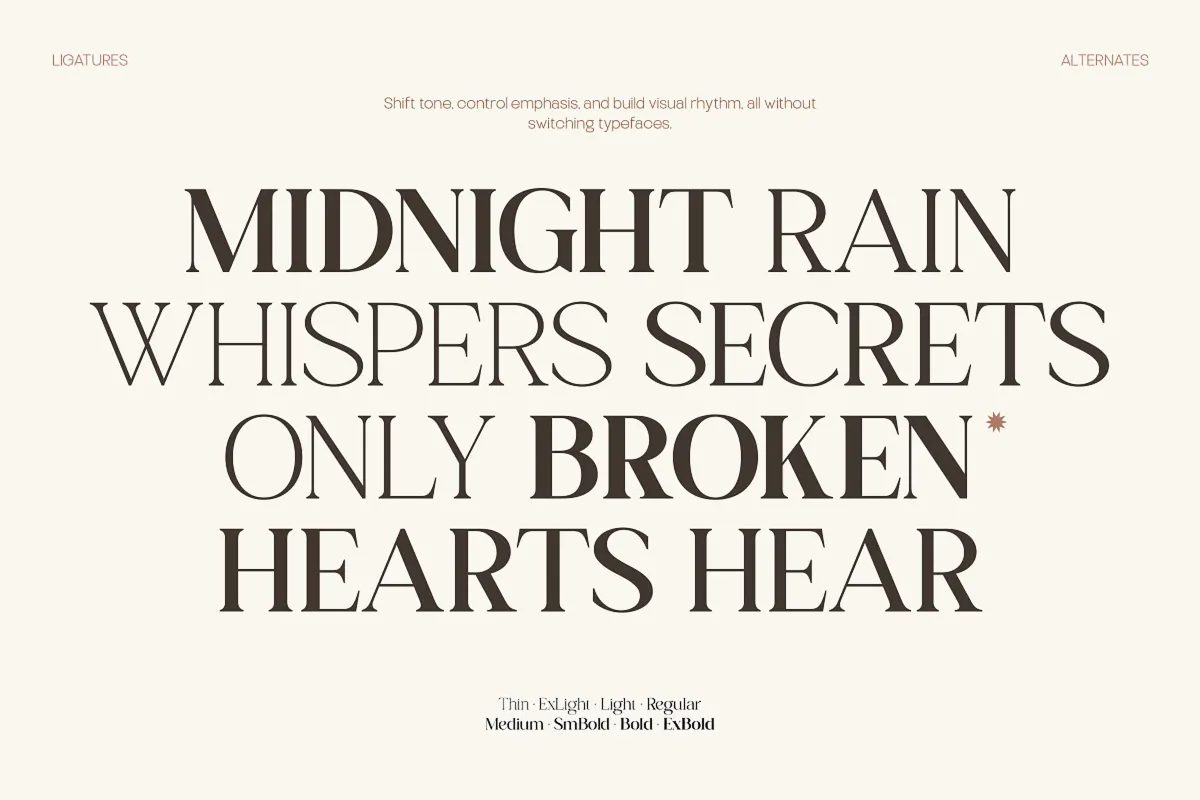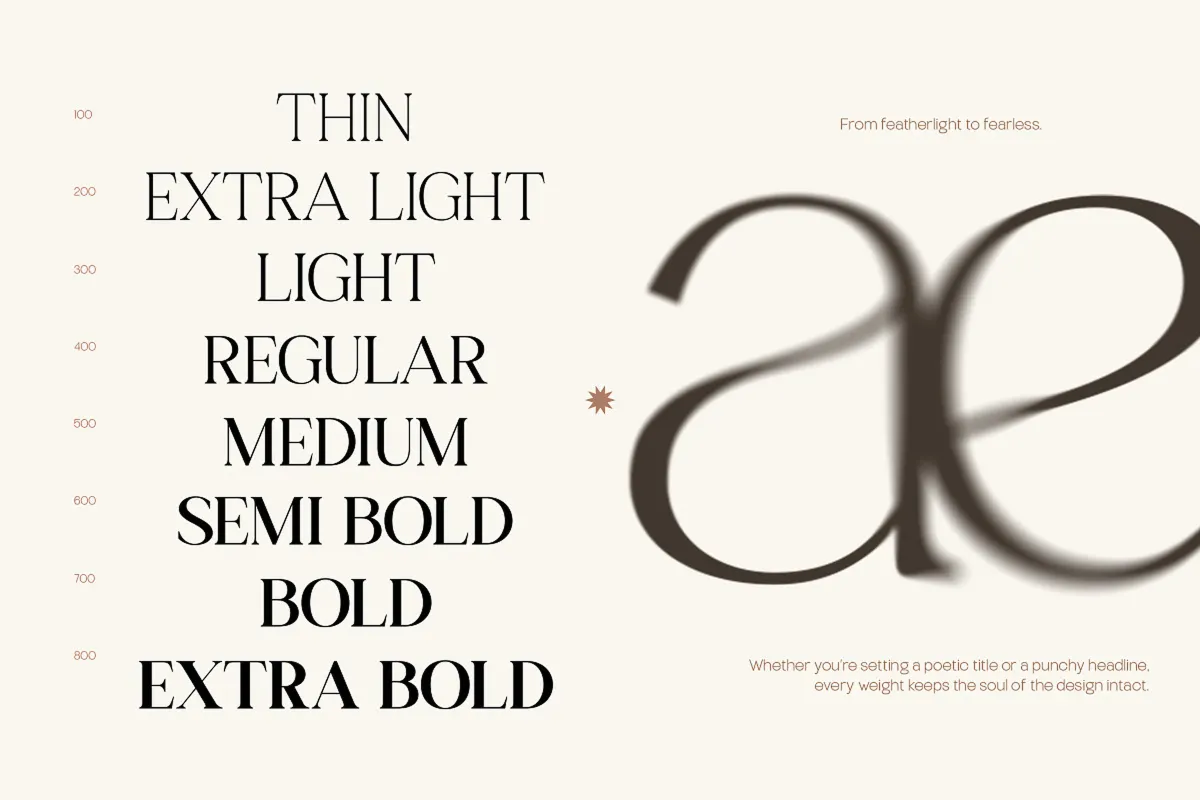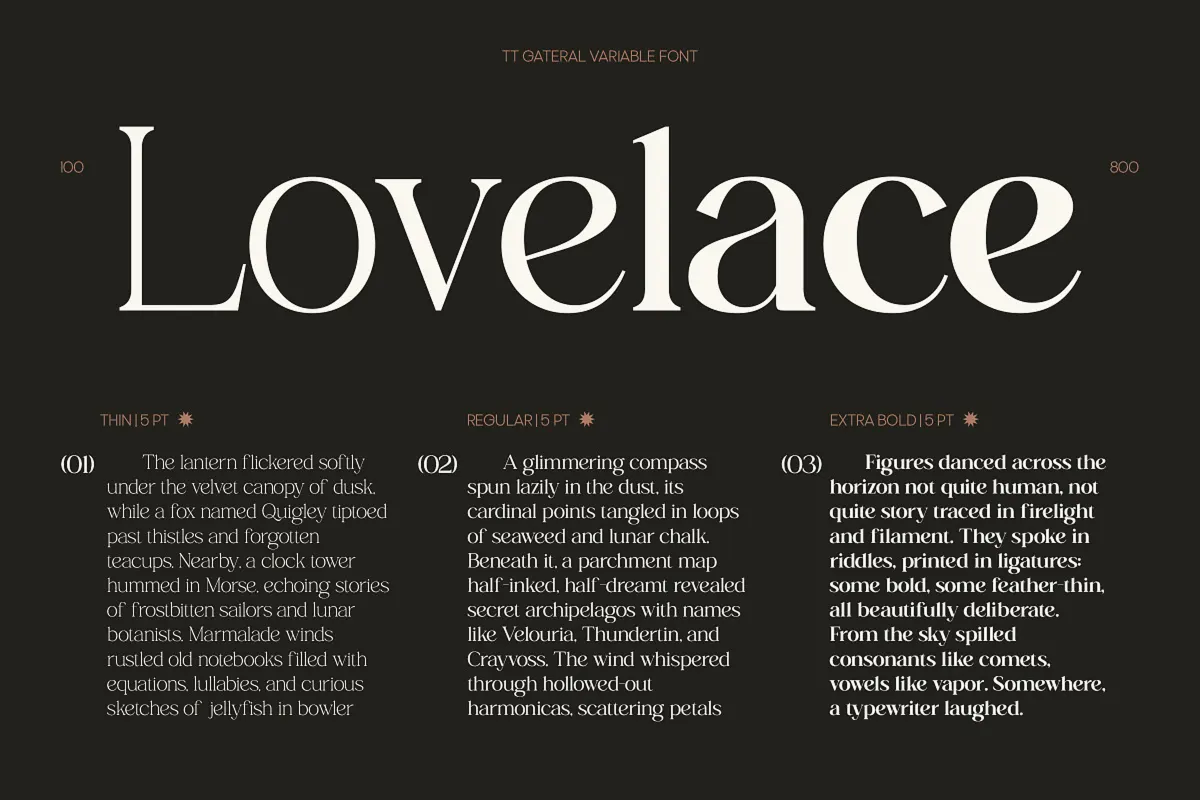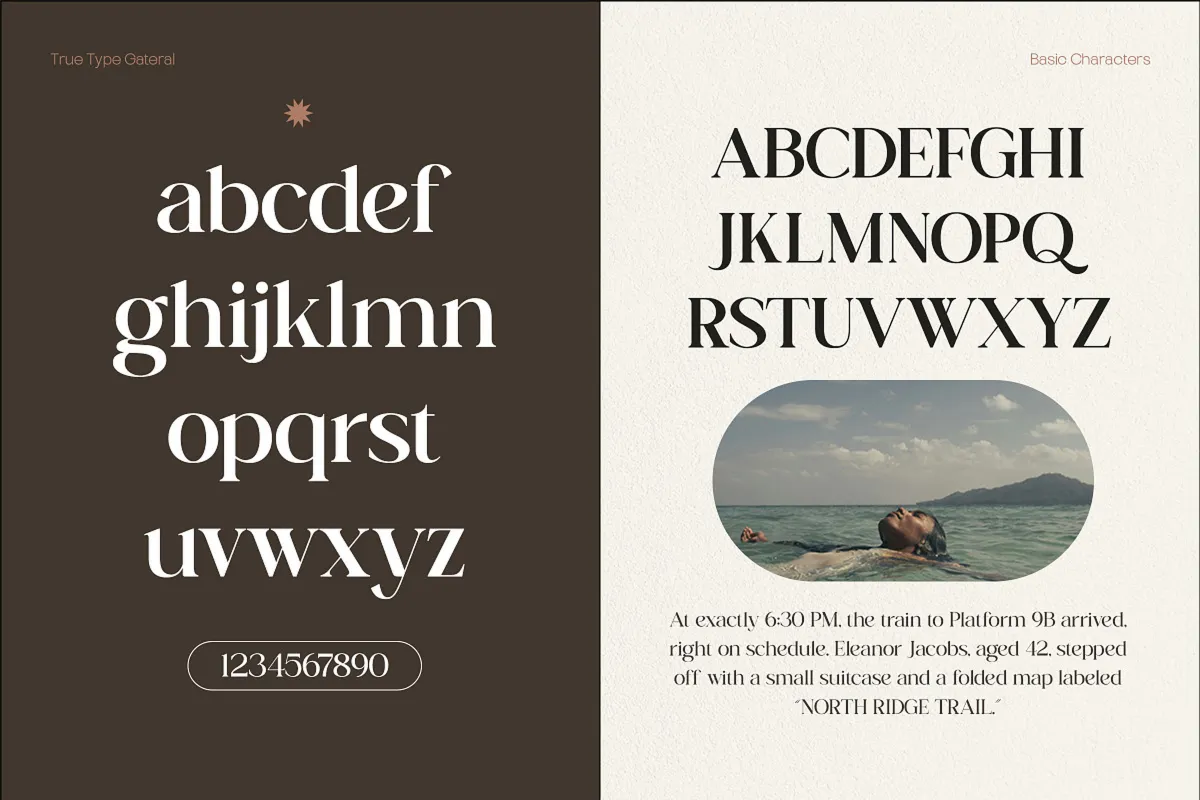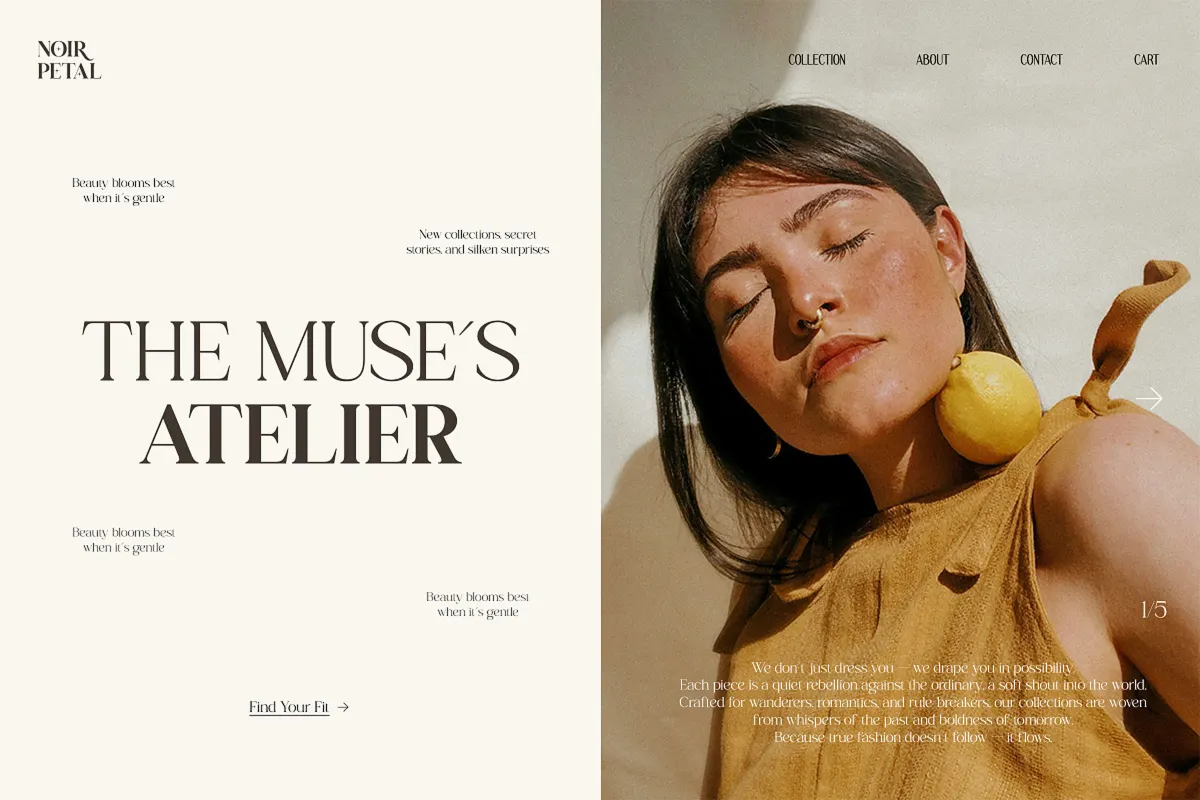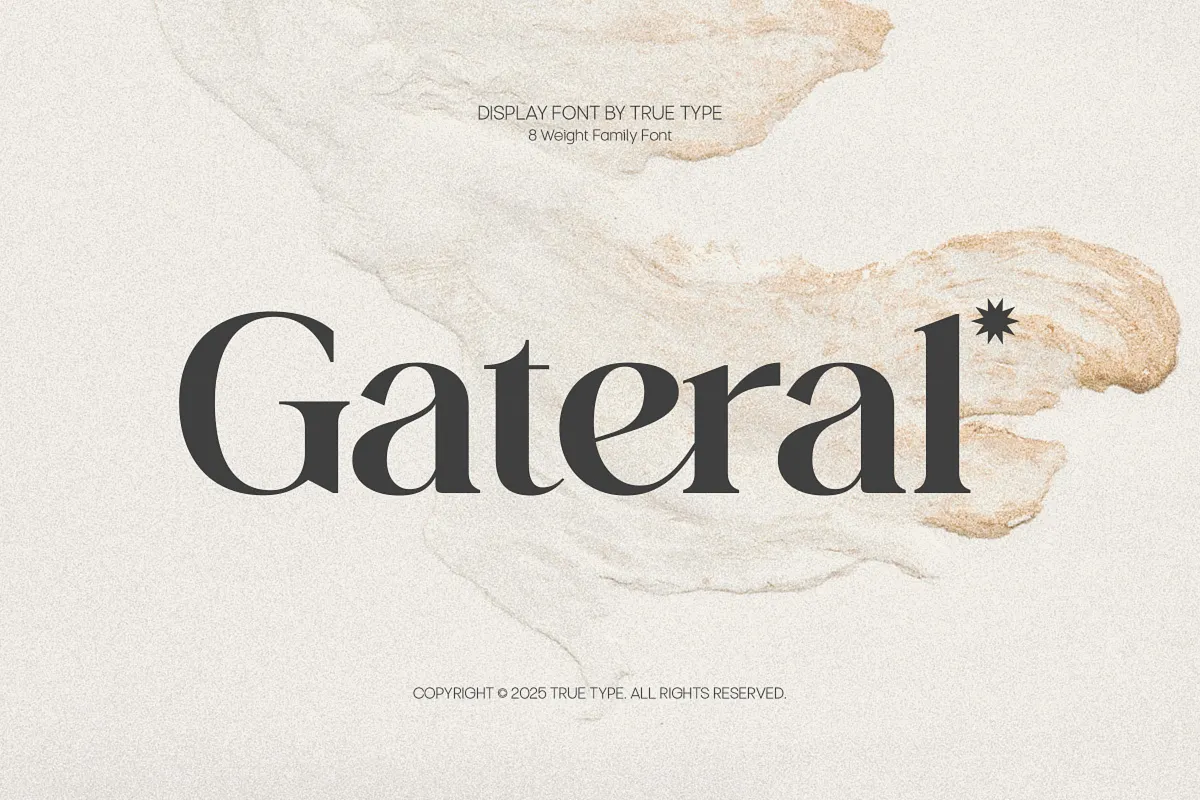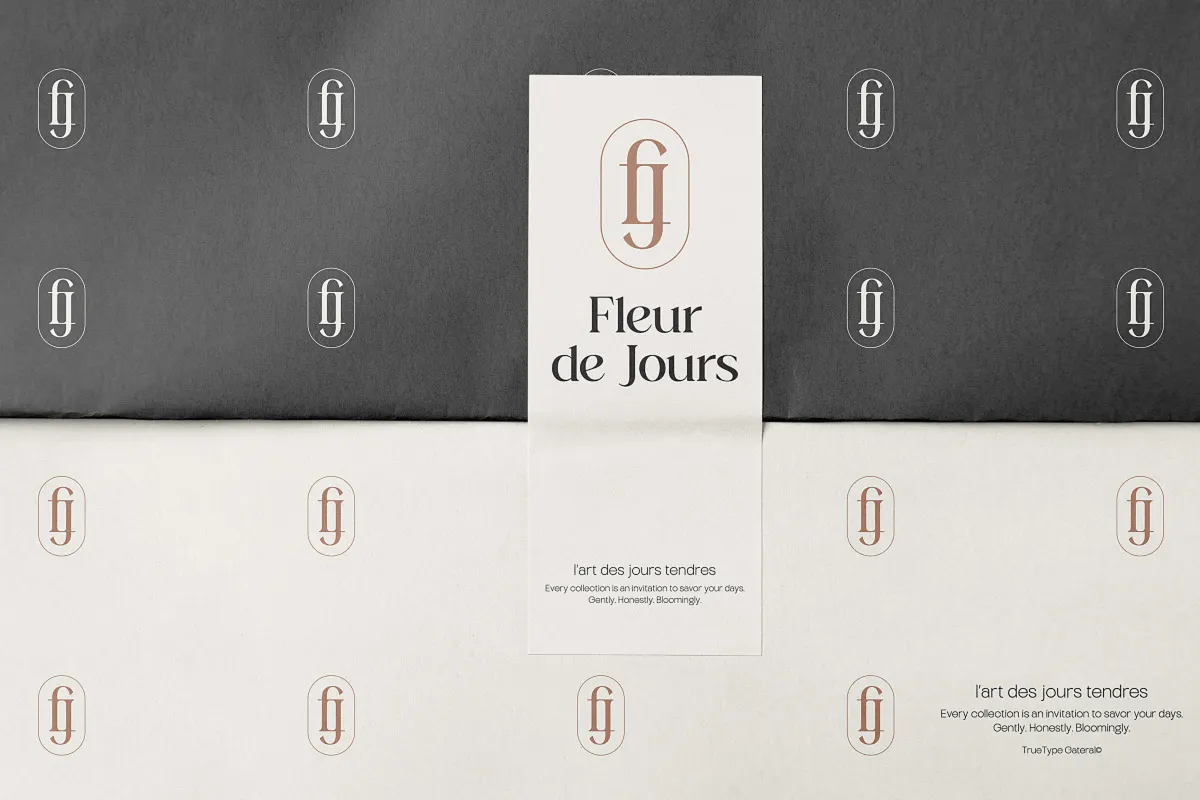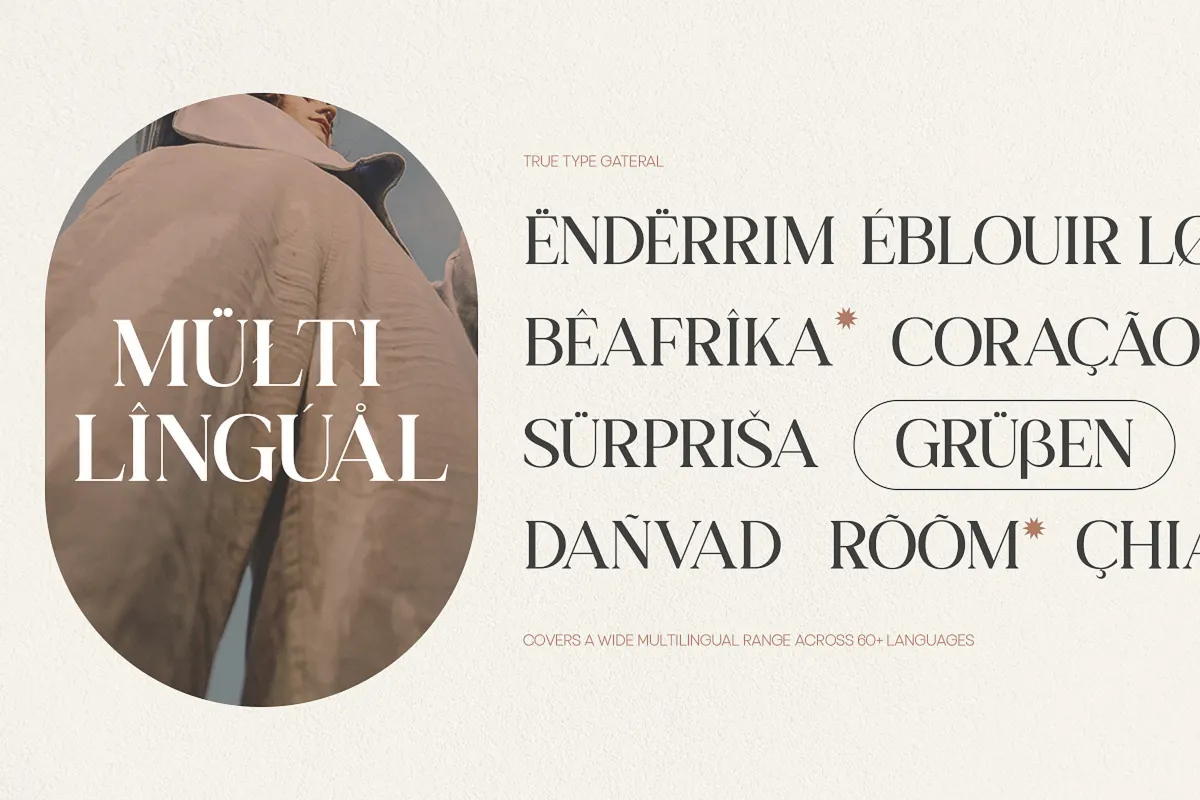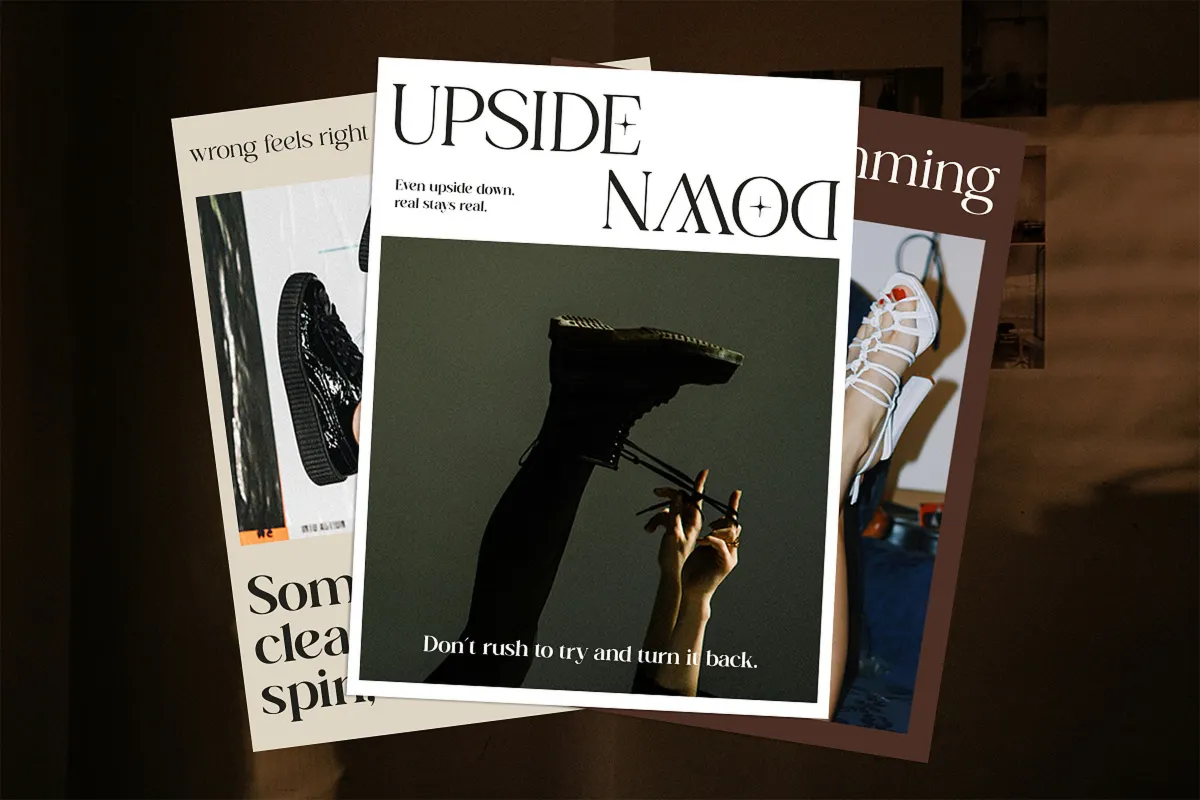
TRT Gateral – Elegant Serif Font
Gateral builds a clean serif structure with gentle contrast and calm proportions, confident enough for branding work without turning cold or overly formal. Eight weights cover the full range from a hairline Thin through a dense Extra Bold, and a variable font file carries that same range in one file.
Ligatures round out the technical side, fusing pairs like CH, DO, ER, and LA into single sculpted shapes, and two stylistic alternate sets soften A, E, F, O, R, and H for headlines that want a touch less rigidity. Use it for branding, editorial layouts, packaging, posters, invitations, and digital content.
- 8 styles: Thin, ExtraLight, Light, Regular, Medium, SemiBold, Bold, ExtraBold;
- 1 variable font covering the full weight range;
- Uppercase & lowercase;
- Numerals, punctuation & symbols;
- Ligatures, stylistic alternates & superscript figures;